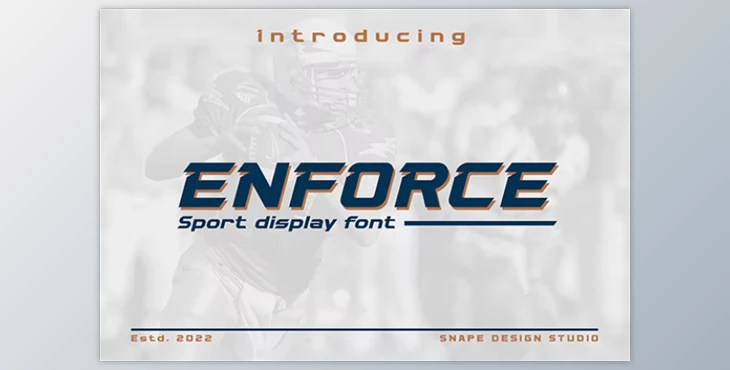
Enforce – Sport Font:
Enforce is a strong font designed to grab attention to projects that require an imposing look, feel, and strong, and add an exciting design that is inspired by sports. It is suitable for sports design jersey, team league, film documentaries, film logo posters, game covers, book covers headlines, titles, and many other projects. Include this font in your ideas for creative inspiration and observe how they stand out!